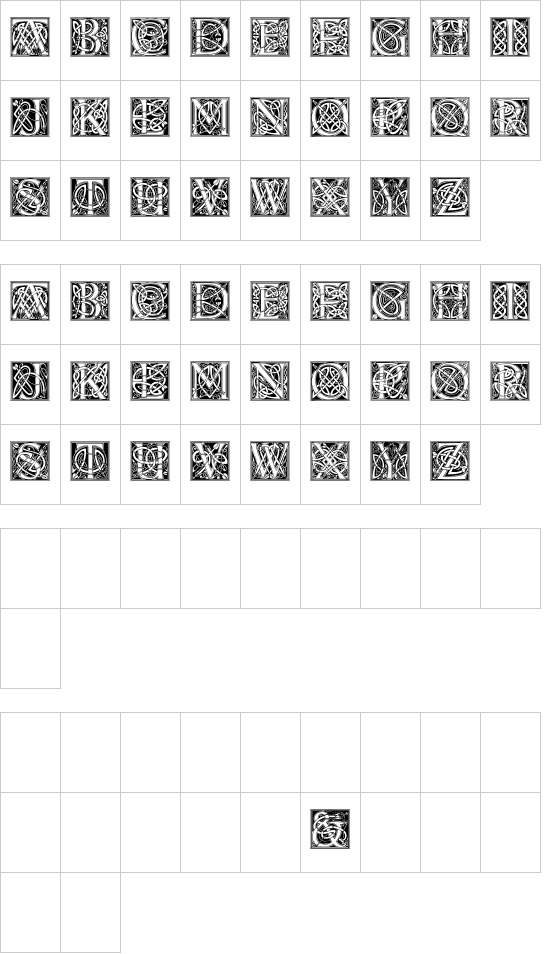
CelticEels
CelticEels is a decorative initial-caps font with interlaced Celtic knotwork woven through each ornate capital. The looping, eel-like bands twist around the letterforms, and the dense interlacing gives every character the intricate, hand-carved feel of an illuminated manuscript page.